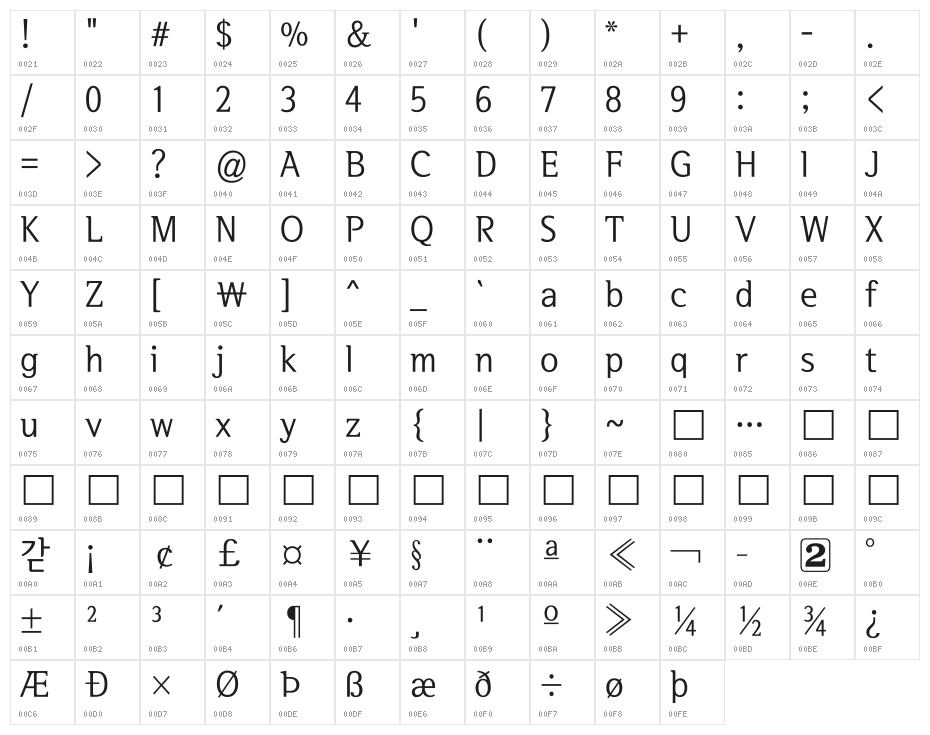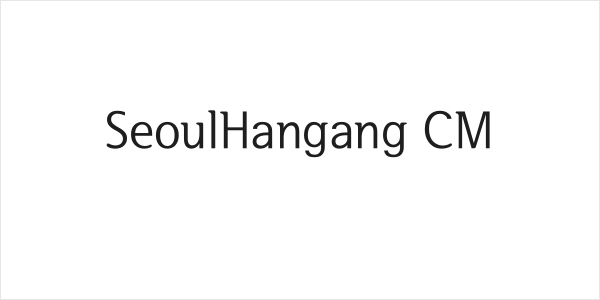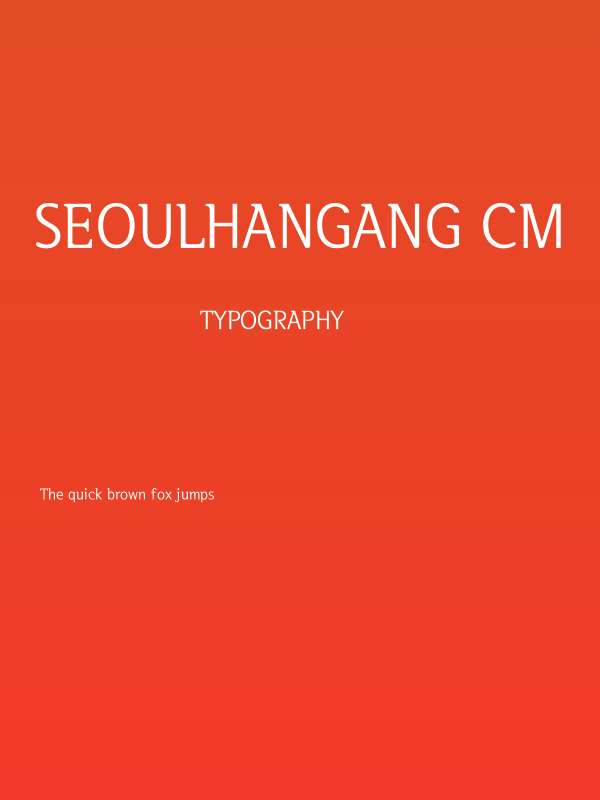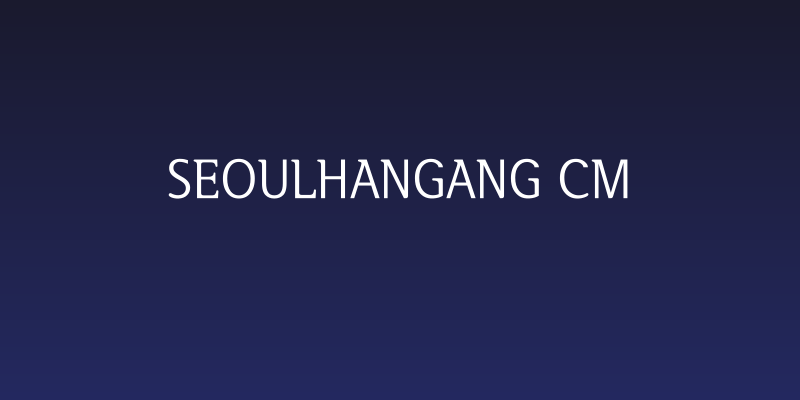
SeoulHangang CM Font
SeoulHangang CM Description
This font features a clean and modern serif design, characterized by its balanced proportions and elegant strokes. The uppercase letters are bold and authoritative, while the lowercase letters maintain a harmonious flow. The numerals are clear and easily distinguishable, making them suitable for various applications. The special characters are well-integrated, ensuring consistency across the typeface. Its overall appearance is professional and versatile, making it suitable for both digital and print media.
| Proposed Projects | Ideal for editorial design, corporate branding, and formal invitations. |